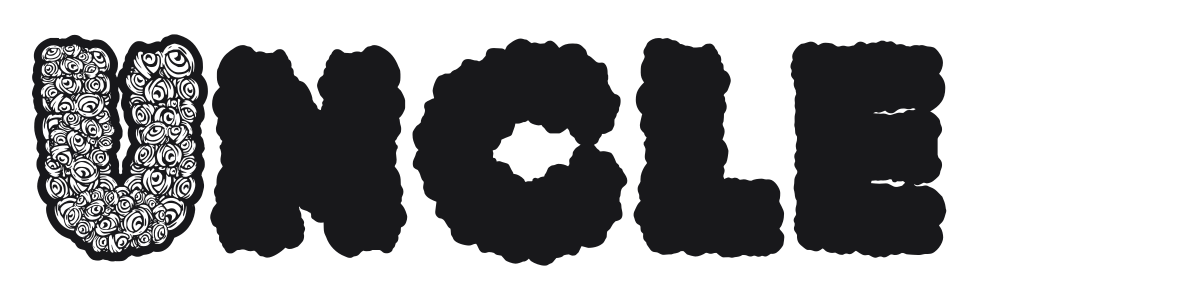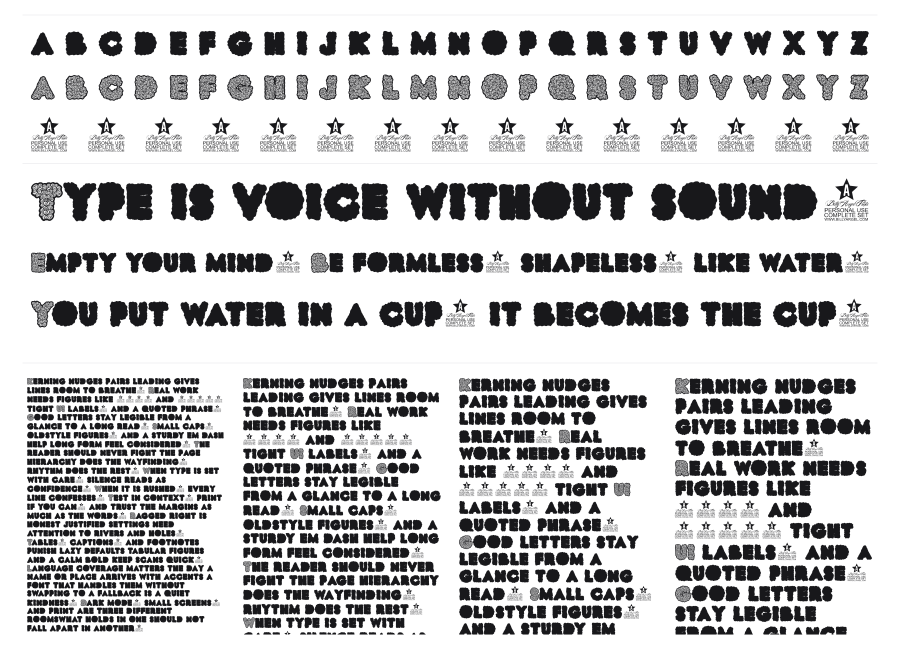
Uncle
Uncle is a heavy display font by Billy Argel built entirely around a lumpy, cloud-like texture that replaces smooth edges with dense rounded bumps. The result reads somewhere between a bubbly comic style and a grunge distressed aesthetic, carrying a lot of personality at large sizes. It suits posters, logos, and packaging where a handmade, slightly unruly tone is the point.